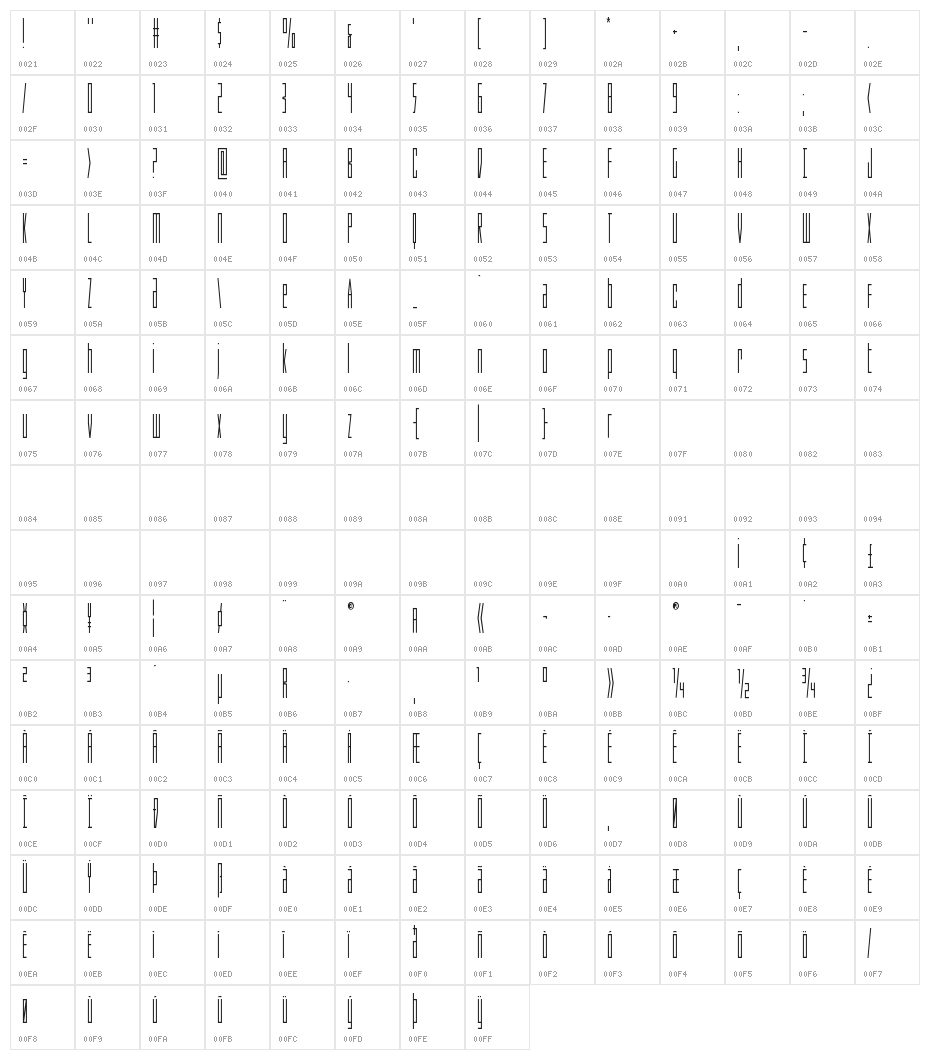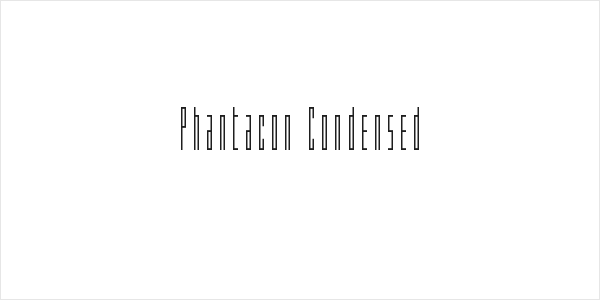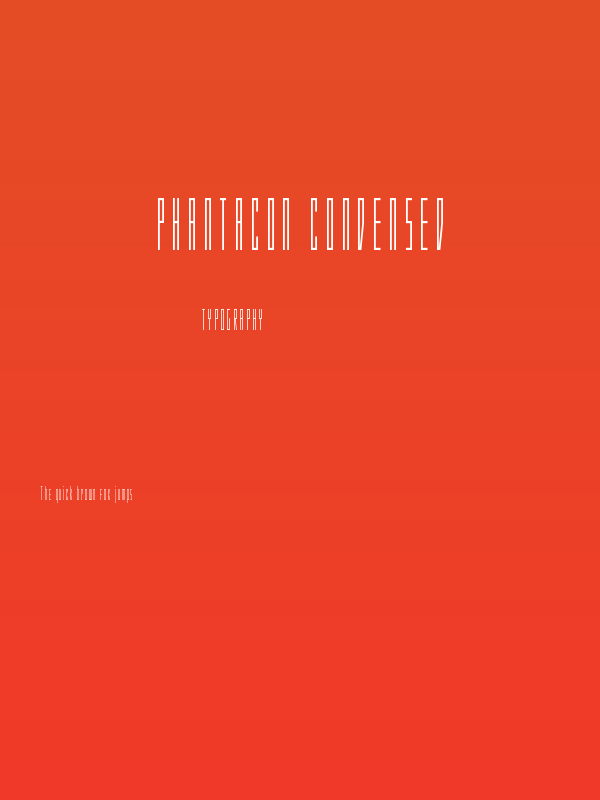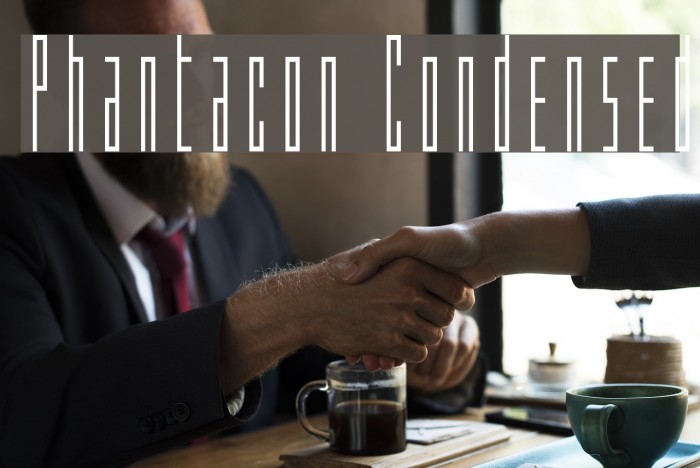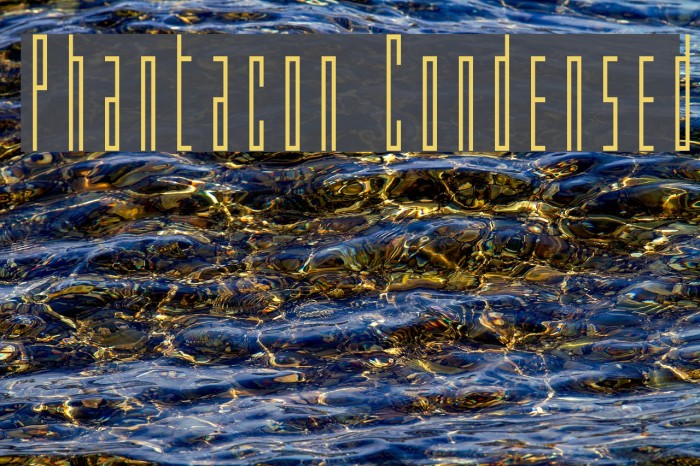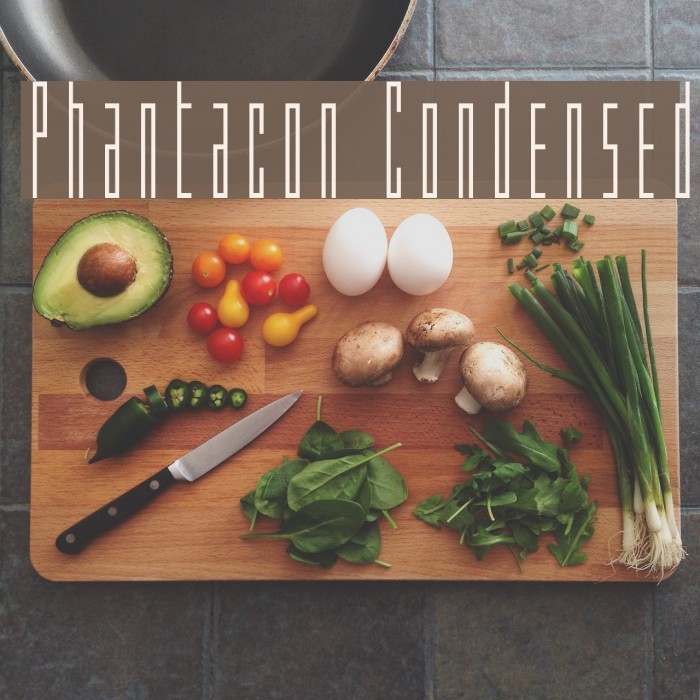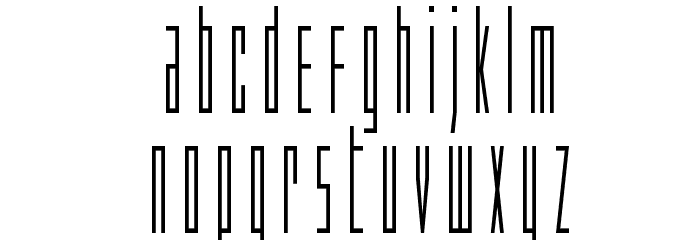
Phantacon Condensed Font
Phantacon Condensed Description
This font features a tall, narrow design with a distinctly modern and geometric aesthetic. The characters are elongated and condensed, giving them a sleek and sophisticated appearance. The vertical lines are prominent, with minimal curves, creating a clean and streamlined look. The uppercase and lowercase letters maintain a consistent height, contributing to the uniformity and balance of the typeface. The numerals and special characters are designed to match the overall style, ensuring cohesion across all elements. This font is ideal for projects that require a contemporary and stylish touch.
| Proposed Projects | Ideal for branding, posters, and editorial design where a modern and sleek appearance is desired. |